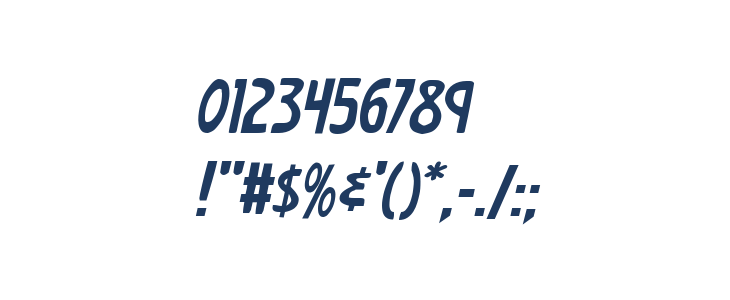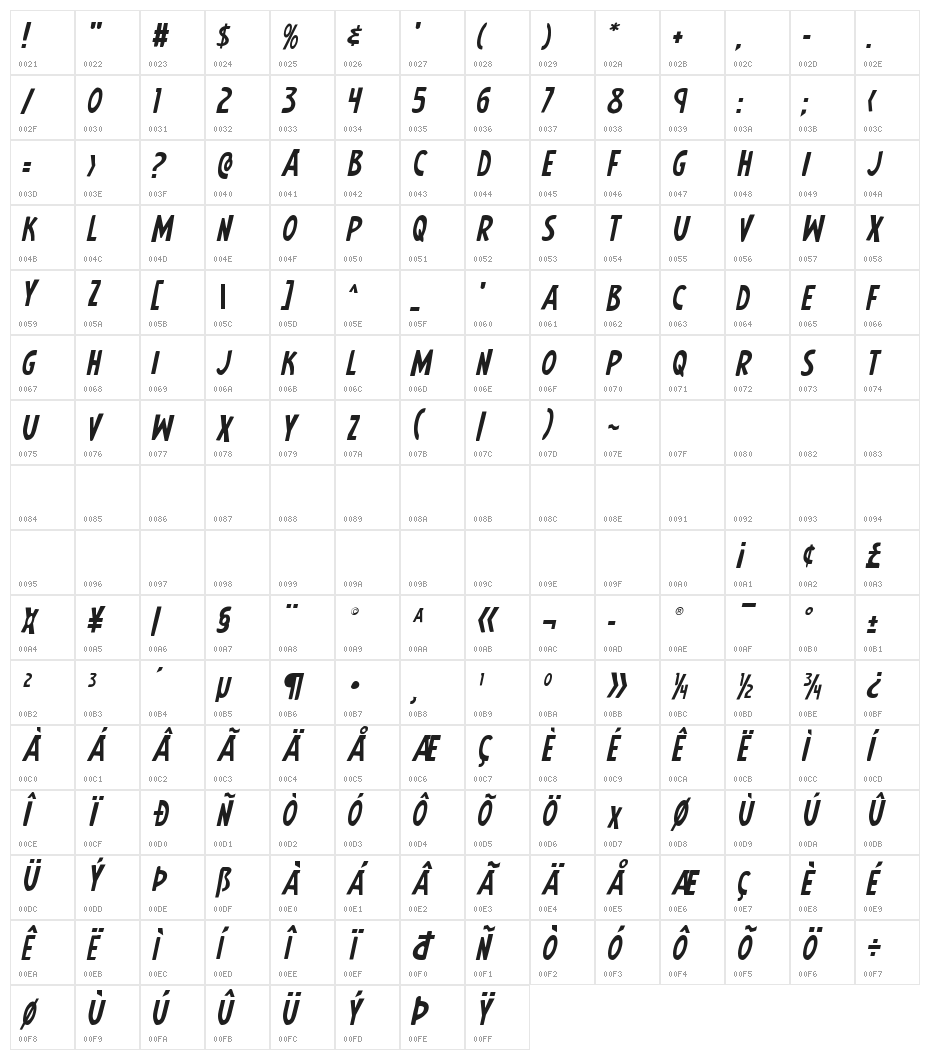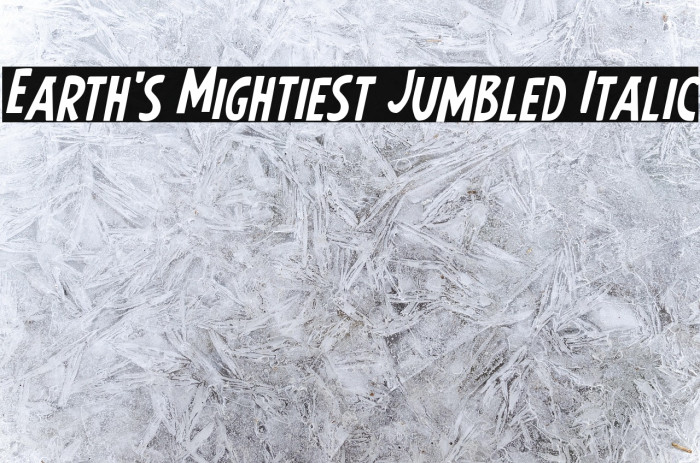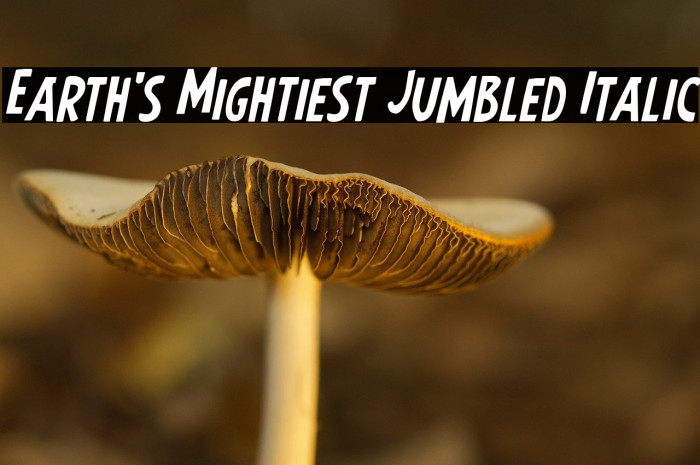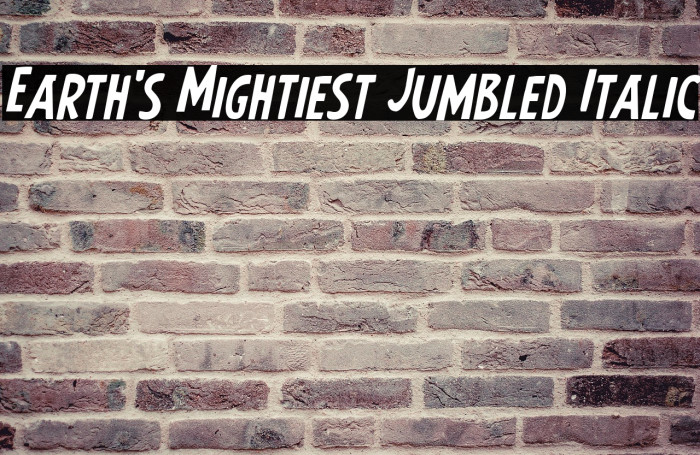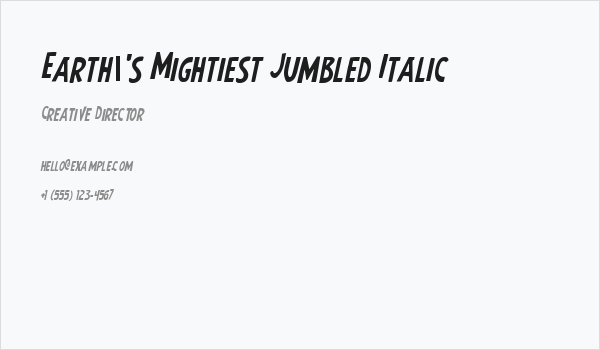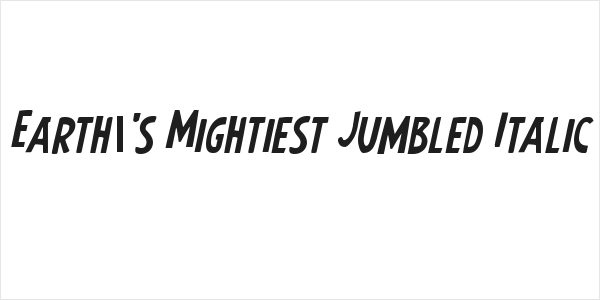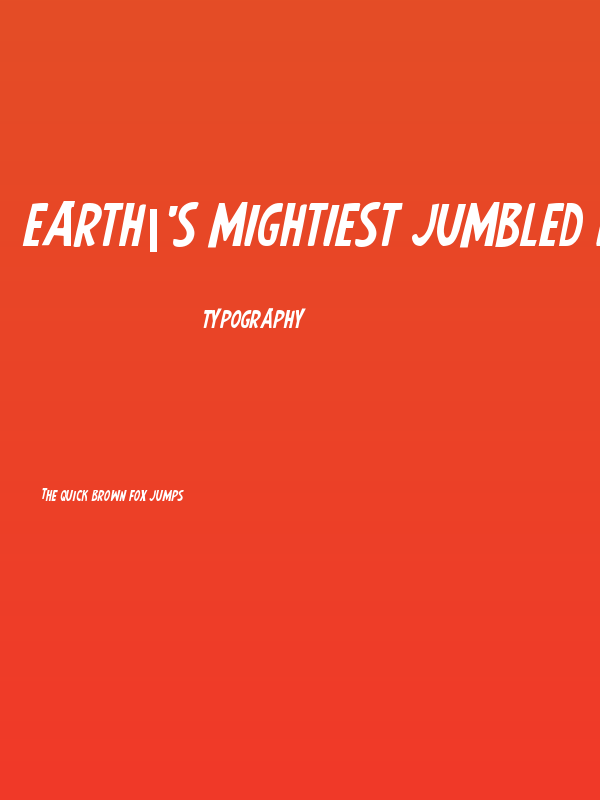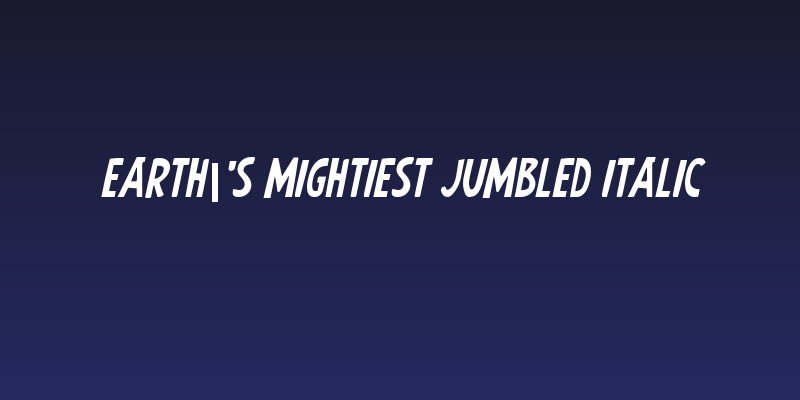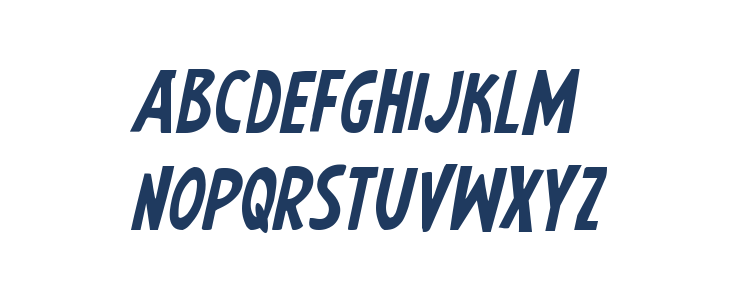
Earth's Mightiest Jumbled Italic Font
Earth's Mightiest Jumbled Italic Description
This dynamic and bold typeface features a strong italic slant, giving it a sense of movement and energy. The characters are slightly condensed, with a consistent stroke width that maintains readability while adding a touch of flair. The uppercase and lowercase letters are well-balanced, with a modern aesthetic that is both sleek and assertive. The numerals and special characters are designed to complement the letters, ensuring a cohesive look across all text. This font's unique style makes it suitable for projects that require a bold statement.